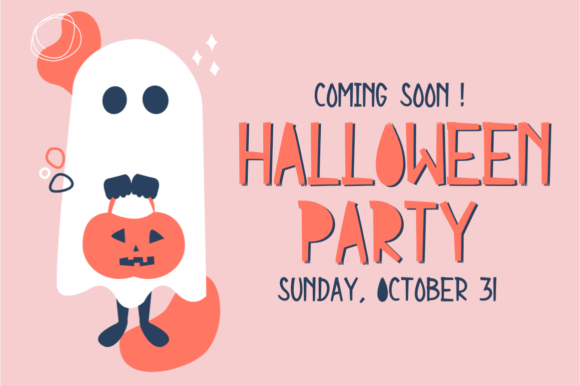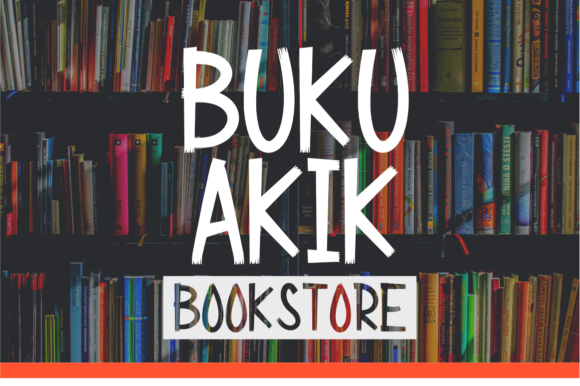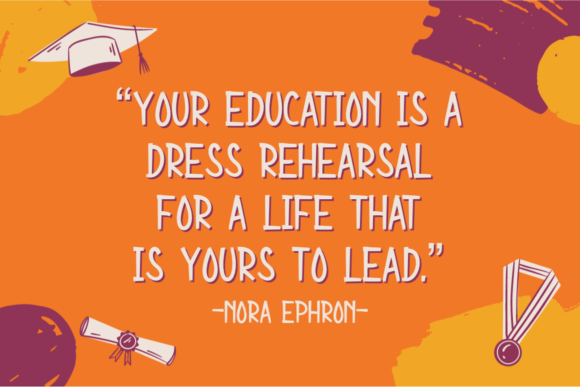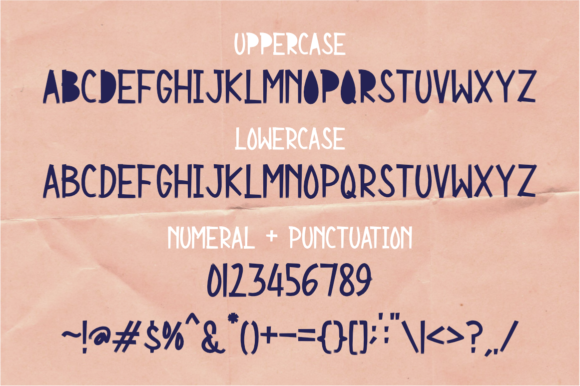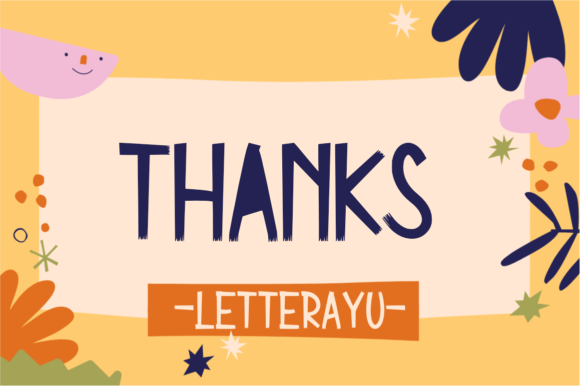
Unleash Your Creativity with the Angry Awesome Font
Do you remember that moment when a burst of inspiration hits you, and you can’t wait to bring your idea to life? Maybe it’s the excitement of working on a new project, or perhaps it’s the thrill of creating something entirely new. Whatever the spark, we’re here to fuel your creative fire with the Angry Awesome Font – a cool, fun, and uniquely shaped display font that’s sure to elevate your designs.
Whether you’re crafting cartoon characters, designing children’s games, or working on any project that requires a playful touch, the Angry Awesome Font is an amazing choice. Its versatility and charm make it a valuable addition to any designer’s toolkit, offering endless possibilities for creative expression.
With the Angry Awesome Font, you’ll be able to add a dash of fun and personality to your work, making it stand out from the crowd. So why settle for ordinary when you can unleash your inner creativity with this awesome font?
- Unique Characteristics: The font features a bold, distressed, and energetic design, making it perfect for conveying strong emotions and creating attention-grabbing headlines.
Designer Review: Angry Awesome Font
Overall, I’d say the Angry Awesome Font is a bold, eye-catching choice that’s sure to grab attention. Here are a few things that I think really work well: ✨
- Unique character set: The font’s quirky, handwritten feel gives it a lot of character and personality.
- High contrast: The font’s thick lines and bold strokes make it easy to read, even at smaller sizes.
- Expressive: The font’s irregularities and imperfections give it a lot of emotional depth and convey a sense of passion.
- Limited legibility: The font’s irregularities and lack of clear lines can make it difficult to read at a distance or in small sizes.
- Overwhelming: The font’s bold, attention-grabbing style can be overwhelming if used too extensively.
- Not suitable for body text: The font’s expressive, handwritten feel makes it better suited for headlines and titles than body text.
Overall, I think the Angry Awesome Font is a great choice for making a bold statement or adding some personality to a design. Just be mindful of its limitations and use it thoughtfully.
The Angry Awesome Font is ideal for creating bold and attention-grabbing text. Use it for headlines, titles, and other prominent text elements. It’s also great for creating a playful and edgy look in your designs.